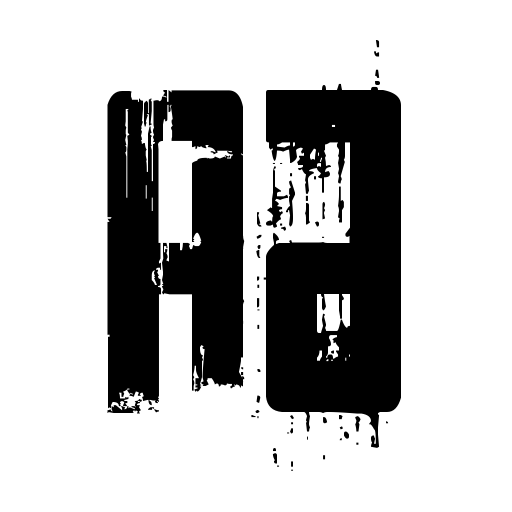
Big Bro's Watch is a bold, condensed sans serif font with a distressed, grunge texture that gives it a rugged and industrial feel. Its tall, blocky letterforms feature high contrast in stroke weight and a rough, eroded appearance, making it perfect for edgy, urban designs or striking headlines. This font works best in posters, logos, and digital art where a strong, rebellious, and gritty vibe is desired.
Big Bro's Watch Font
About Big Bro's Watch Font